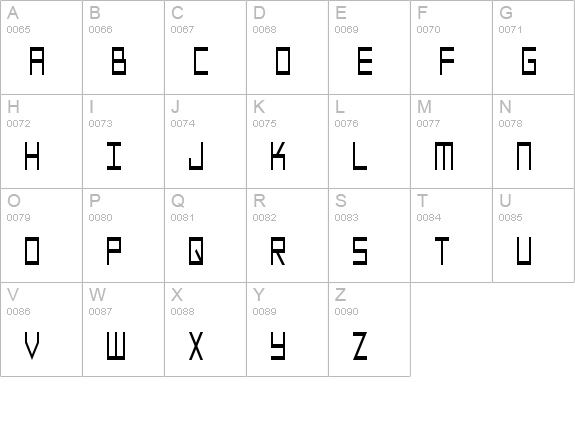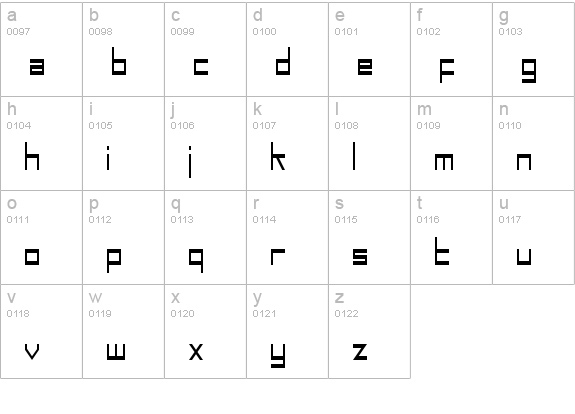
SF Square Head Condensed Font Details
SF Square Head Condensed is a distinctive, condensed-width variant in the SF typeface family \xE2\x80\x94 well suited to design and typography projects.
SF Square Head Condensed is a modern and sleek font that exudes power and sophistication. Its condensed design allows for maximum impact, making it perfect for headlines, logos, and bold statements. The sharp angles and clean lines of this font give it a futuristic and technologically advanced feel, making it ideal for projects that require a contemporary touch. SF Square Head Condensed is not only visually striking, but it also offers great versatility. It can be used in a variety of design contexts, from digital interfaces to print materials, adding a touch of professionalism and elegance to any project. One of the best features of SF Square Head Condensed is that it is free! That's right, this amazing font is freely available to download at FontsMarket.com. Whether you are a professional designer or a hobbyist looking to add a unique touch to your creations, SF Square Head Condensed is a fantastic choice. It is compatible with both Windows and Mac operating systems, ensuring that it can be easily integrated into any design workflow. With SF Square Head Condensed, you can elevate your designs to the next level. Its bold and distinctive appearance will capture the attention of your audience and leave a lasting impression. Download SF Square Head Condensed today and unlock the potential of this remarkable font.